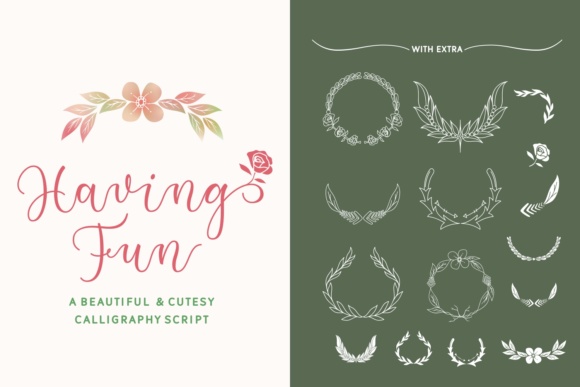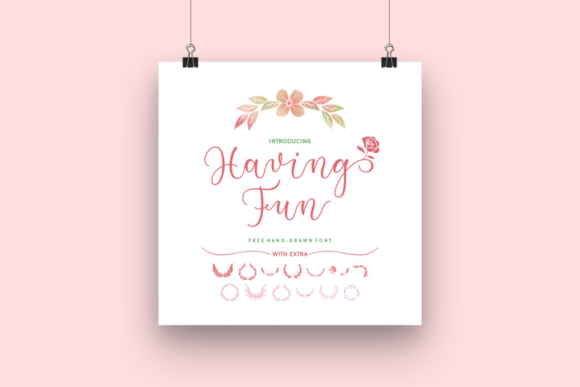
Having Fun Script Font
Having Fun is a beautiful and cutesy calligraphy script, perfect for giving your designs a gorgeous and soft appeal. This font is ideal for a wide range of display uses!